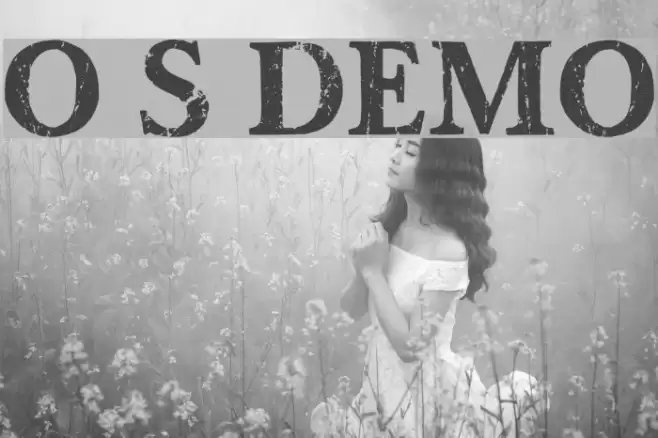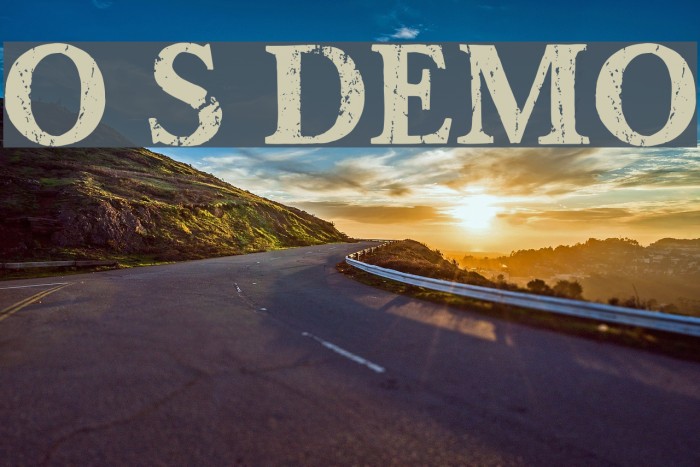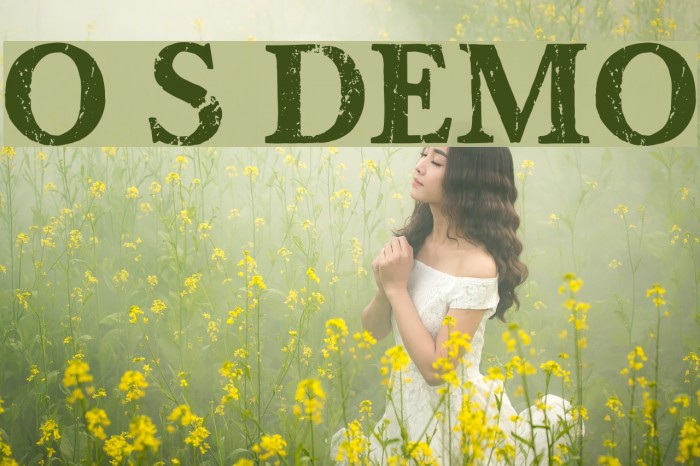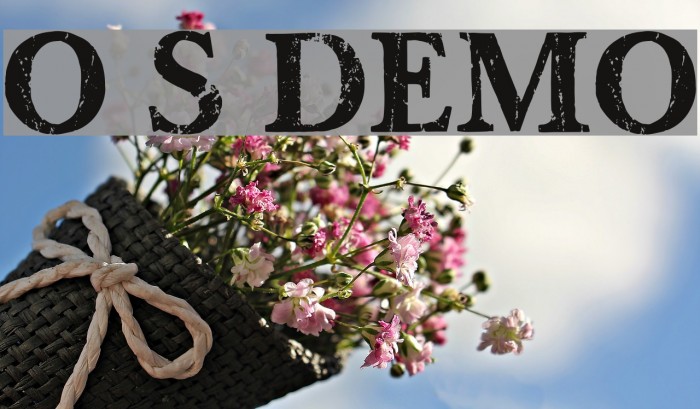
Ottanio Stamp DEMO Font
Ottanio Stamp DEMO Description
This font features a distressed, textured appearance reminiscent of vintage rubber stamps. The uppercase letters exhibit a bold and impactful style, with rough edges and an uneven texture that adds a sense of authenticity and character. The design is highly decorative, making it suitable for projects that require a rustic or industrial feel. The font's unique style is perfect for creating eye-catching headlines or logos that stand out. Its boldness and texture make it less suitable for body text but ideal for creative and artistic projects.
A bold, textured font with a vintage, stamped appearance from Uncategorized fonts.
- Proposed Projects: Ideal for vintage-themed posters, logos, branding, and packaging designs that require a rustic or industrial aesthetic.
- Overall Style: Vintage